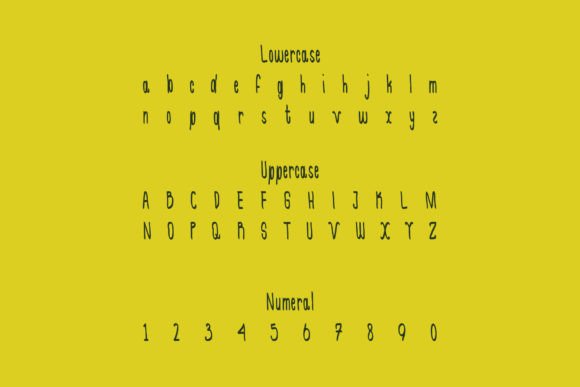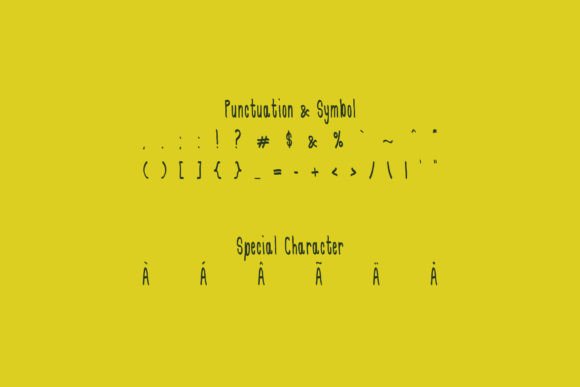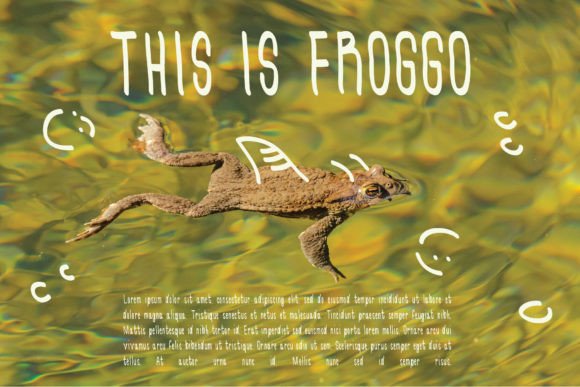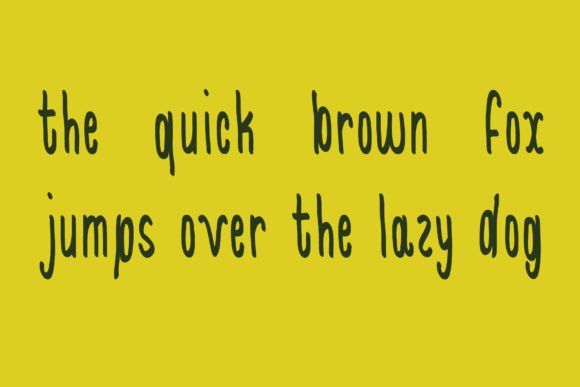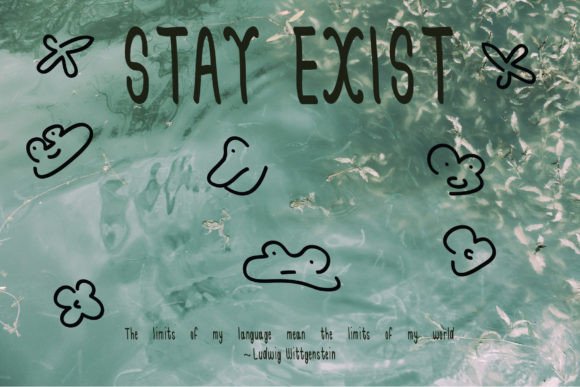
Unlocking the Magic of Your Designs with Froggo Font
Remember that moment when you’re brainstorming ideas for a new project and suddenly, the perfect font pops into your mind? It’s like a spark of creativity that sets your entire design ablaze. For designers, the right font can make all the difference between a decent project and a truly exceptional one. And that’s where Froggo Font comes in – a versatile, eye-catching font that’s perfect for making a statement in posters, banner ads, and landing pages.
Froggo Font’s unique blend of slim shards and playful curves makes it an instant hit with designers looking to add a touch of magic to their work. Whether you’re creating cartoon game text or simply want to add some visual flair to your next project, Froggo Font is an invaluable asset in your design toolkit.
Froggo Font Key Features
- Font Family: Froggo Font is a unique, hand-drawn sans-serif font family designed for creative and playful projects.
- Character Set: Includes over 200 glyphs, including uppercase and lowercase letters, numbers, punctuation marks, and special characters.
- Unique Characteristics: Features a distinctive, playful feel with exaggerated letterforms, making it ideal for branding, advertising, and editorial design projects.
Froggo Font Review
As a designer, I was excited to dive into the world of Froggo Font. I’ve always been a fan of unique and quirky fonts, and Froggo did not disappoint. Here are the things that worked well for me:
- ✨ The font’s irregularities and playful feel make it perfect for projects that need a bit of whimsy.
- ✨ The font is incredibly versatile and can be used for a wide range of applications, from branding to editorial content.
- ✨ The font’s bold and expressive nature makes it perfect for headings and titles.
However, there are a few limitations that I’d like to point out:
- ⚠️ The font can be difficult to read in smaller sizes, especially in text-heavy content.
- ⚠️ The font’s irregularities can make it challenging to pair with other fonts, requiring careful consideration when designing with it.
- ⚠️ The font’s bold nature can sometimes feel overwhelming, making it difficult to use in more subtle designs.
Overall, I’d give Froggo Font 4 out of 5 stars. While it has its limitations, I think it’s a fantastic addition to any designer’s toolkit. With a bit of creative restraint, Froggo Font can add a touch of magic to any project.
Froggo Font is ideal for creating playful and whimsical designs. Use it for:
- Children’s books and educational materials
- Branding and marketing materials for fun and quirky companies
- Party invitations and decorations
Remember to experiment with different font sizes, colors, and styles to get the most out of Froggo Font.
Alternatives to Froggo Font
Playfair Display is an elegant and luxurious serif font perfect for creating high-end designs. It features intricate details and connections between letters, making it ideal for use in invitations, magazines, and luxury branding. In comparison to Froggo Font, Playfair Display is more formal and less playful, but shares a similar sense of sophistication.
Great Vibes is a modern script font that exudes a sense of fun and playfulness. It’s perfect for use in designs that require a carefree and energetic vibe, such as posters, social media graphics, and advertisements. Unlike Froggo Font, Great Vibes is more informal and less quirky, but shares a similar sense of whimsy.
Lato is a clean and modern sans-serif font that’s perfect for use in designs that require a sense of clarity and simplicity. It’s ideal for use in websites, apps, and other digital platforms where a clean and easy-to-read font is essential. In comparison to Froggo Font, Lato is more minimalist and less quirky, but shares a similar sense of sophistication.
Q: What is the recommended font size for optimal readability with Froggo Font?
The recommended font size for optimal readability with Froggo Font is between 12-24 points. This range allows the font to display clearly and legibly, making it ideal for body text, headings, and titles. However, the optimal font size may vary depending on the specific design requirements and viewing distance.